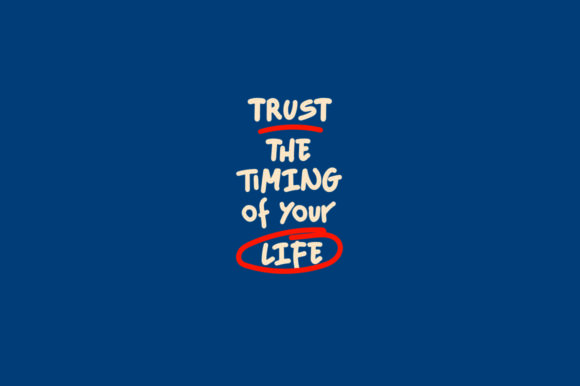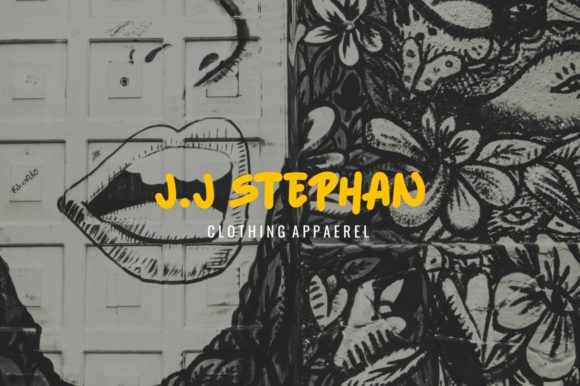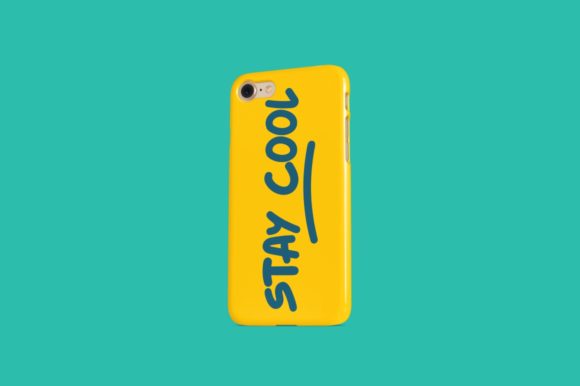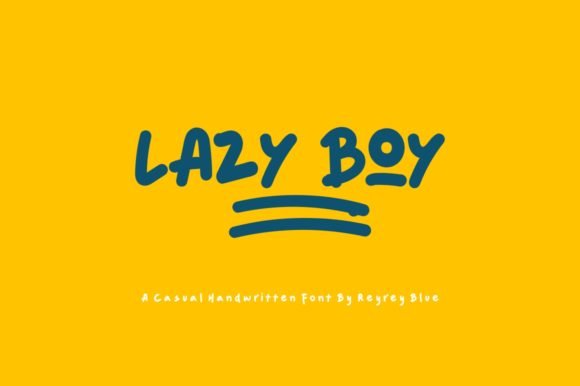
Introduction to Lazy Boy Font
Lazy Boy feels bold and clean.
This display font is perfect for any fun and quirky designs It is ideal for designing merchandise, eye catching social media & marketing posts, and attention-grabbing product packaging & branding projects.
Key Features of Lazy Boy Font
Why Choose Lazy Boy Font?
Lazy Boy Font offers exceptional quality and versatility, making it a valuable addition to your design toolkit. Whether you’re creating for personal projects or commercial use, Lazy Boy Font delivers professional results.